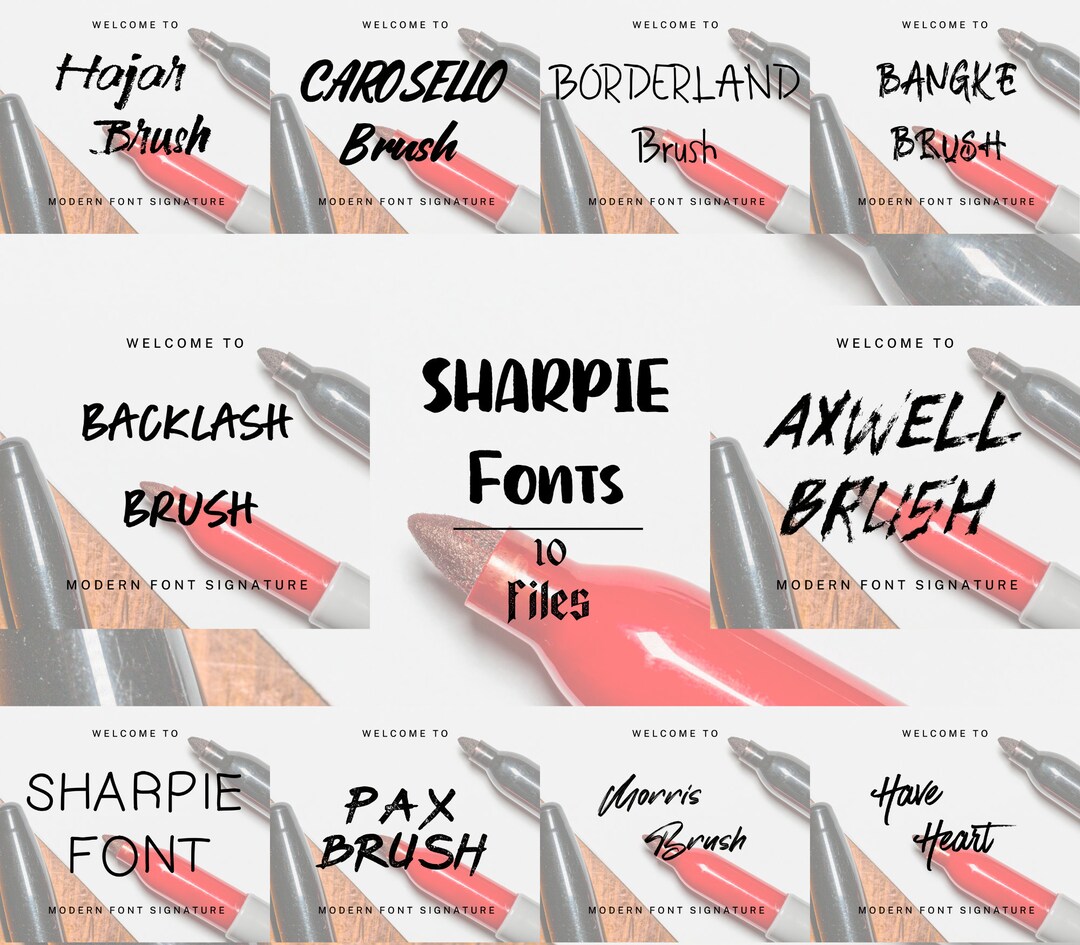
Canva Handwritten Sharpie Fonts
Canva Handwritten Sharpie Fonts - Looking for informal and authentic fonts that appear handwritten? Handwritten fonts are pretty much the unsung heroes of design on canva. They add that personal touch, making your designs feel. If so, read our guide covering the best handwriting fonts in canva! A great story is often remembered not only for its content but also for its presentation—and nothing adds more.